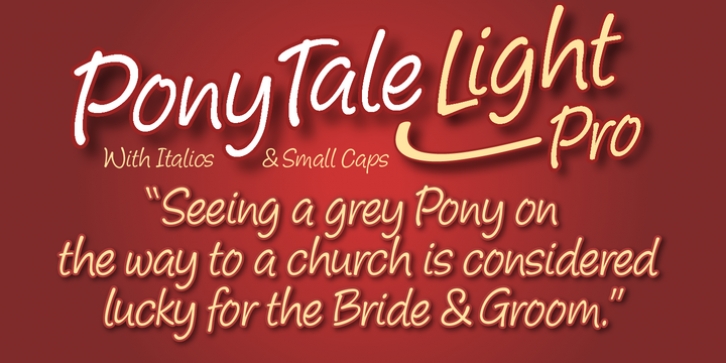
Pony Tale Light Pro downloadDesigner: John Nahmias
Pony Tale Light is a handwriting script face in two styles: Light and Italic.
Very suitable for Packaging, Greeting cards, Magazines, Posters and Advertising Ads.